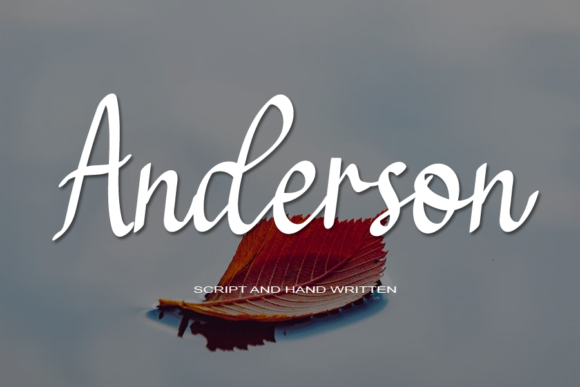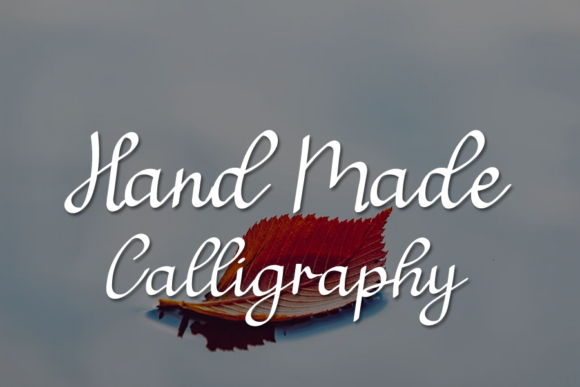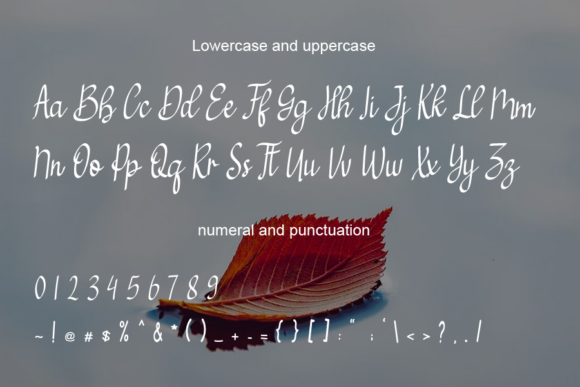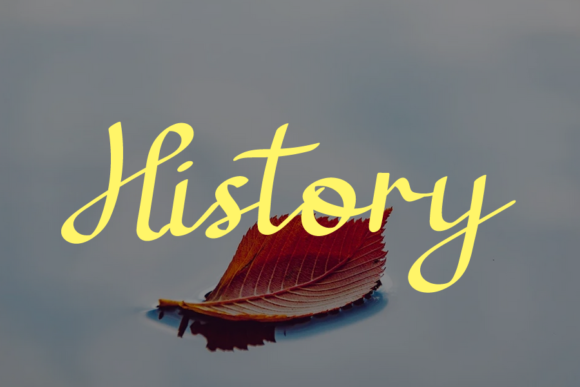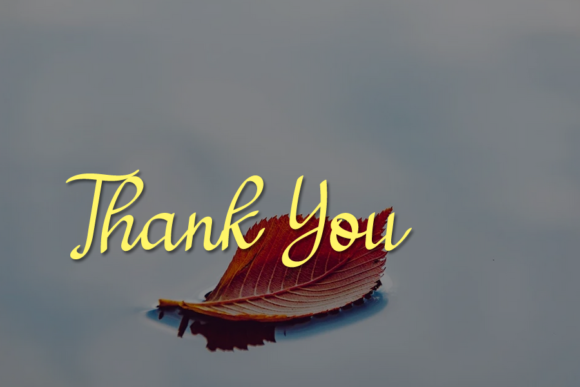
Anderson Font
About Anderson Font
Anderson is a graceful and ageless handwritten font, described by an elegant touch, perfect for your favorite projects. Fall in love with its incredibly chic and attractive style and use it to create spectacular designs!